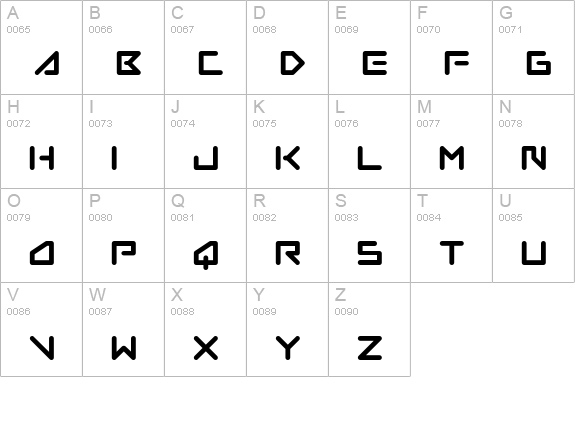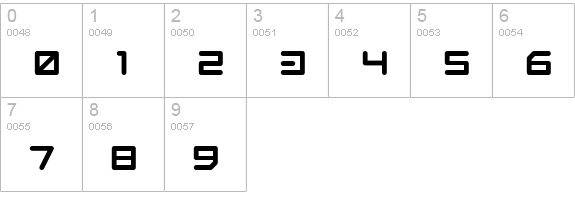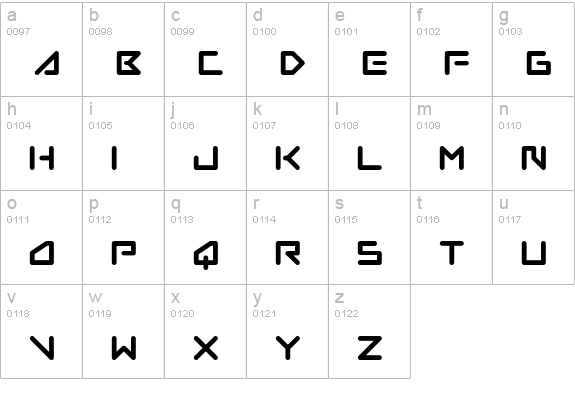
Insane hours 2 Font Details
Introducing the captivating and bold Insane Hours 2 font, a perfect choice for adding a touch of uniqueness to your designs. This font exudes a sense of energy and creativity with its eye-catching style and intricate details. Whether you're working on a poster, logo, or branding project, Insane Hours 2 font will make your text stand out and leave a lasting impression. Designed with precision and passion, this font is ideal for those who are not afraid to push the boundaries and think outside the box. Its dynamic and edgy look will give your projects a modern and fresh feel, making them truly unforgettable. The best part? Insane Hours 2 font is available for free download exclusively at FontsMarket.com. Now you can unleash your creativity without any limitations, as this font is just a click away. Don't miss out on this opportunity to elevate your designs and make a statement with Insane Hours 2 font. Download it now and let your imagination run wild!